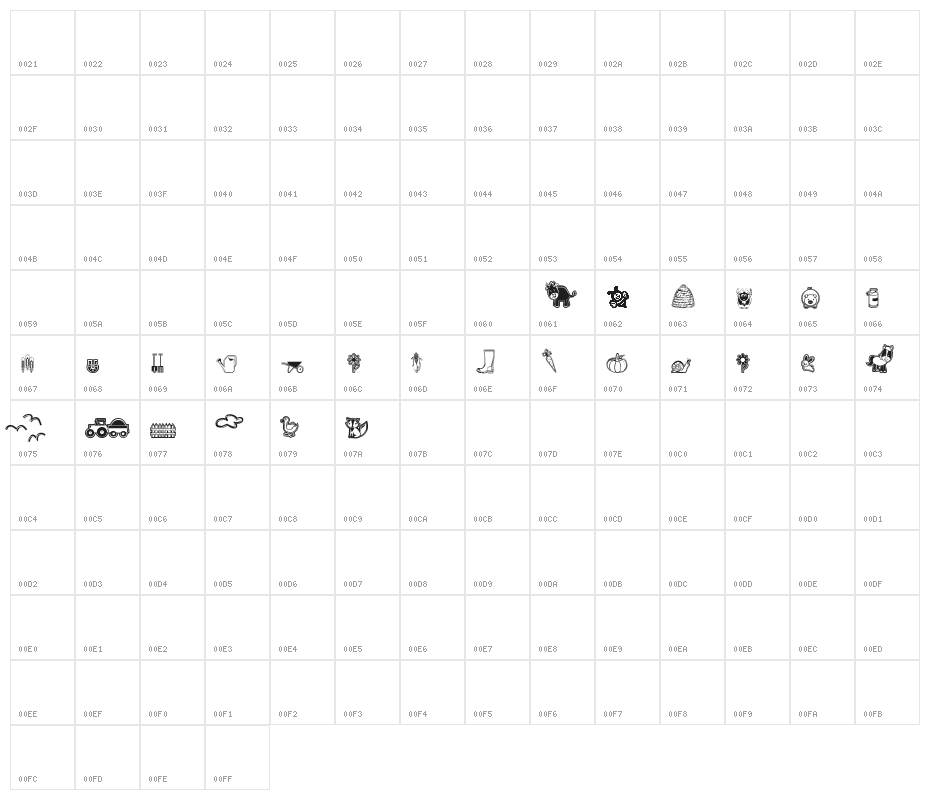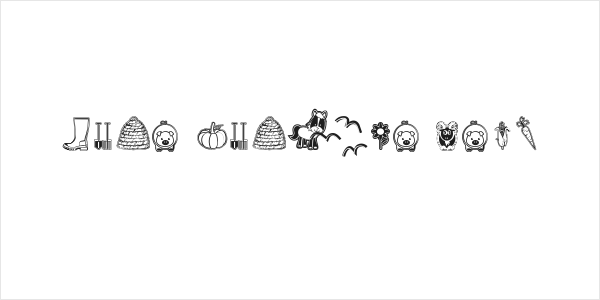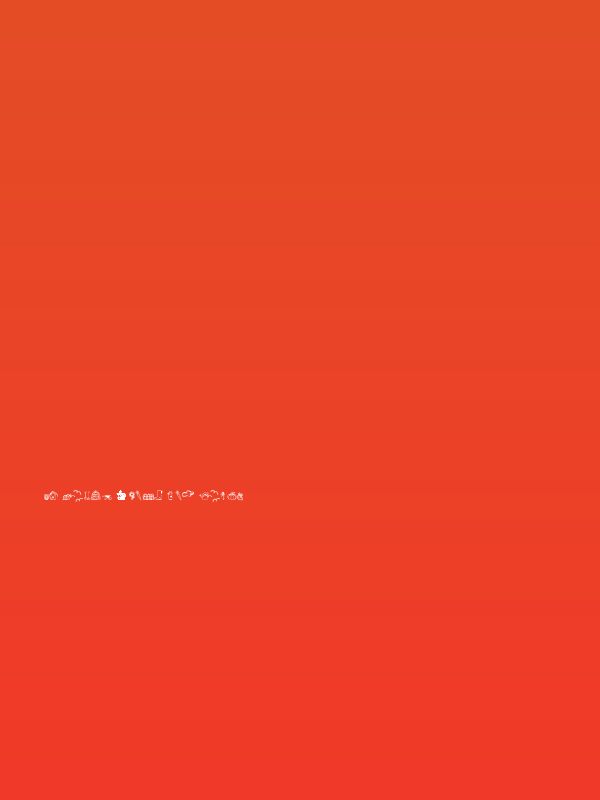
nice picture demo Font
nice picture demo Description
| Overall Style | Playful, Decorative, Whimsical |
| Use Case | Icons, Decorative elements, Themed graphics |
| Proposed Projects | ChildrenΓ’β¬β’s books, educational materials, farm event flyers, scrapbooking, themed party invitations. |